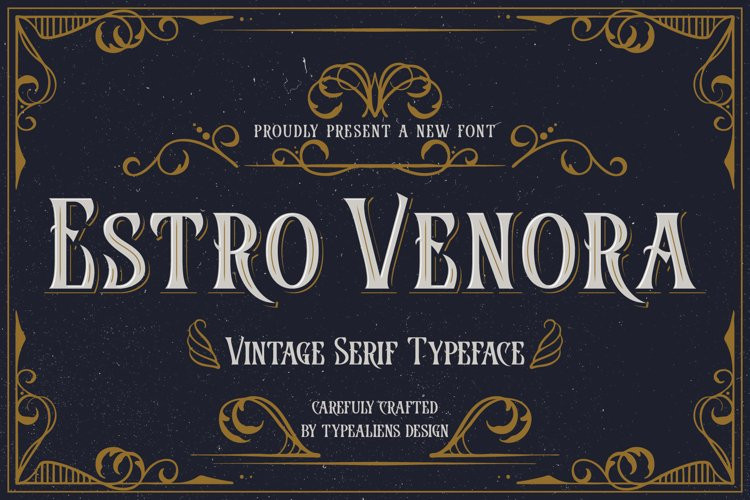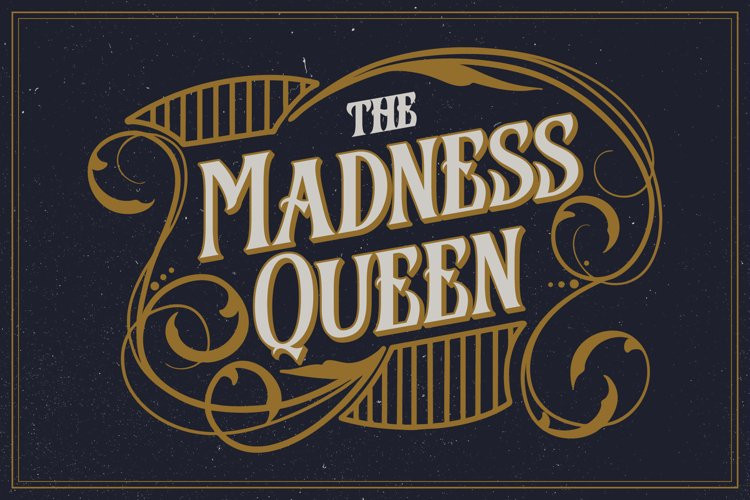
Estro Venora Font
Estro Venora FontESTRO VENORA is a serif font with a vintage style of Victorian influence. A classic font that matches the vintage layout design combined with abstract leaf or floral ornaments.
This font is an allcaps font, with a letter height difference between the uppercase and lowercase. It is suitable for vintage logo designs such as liquor logos and label designs.